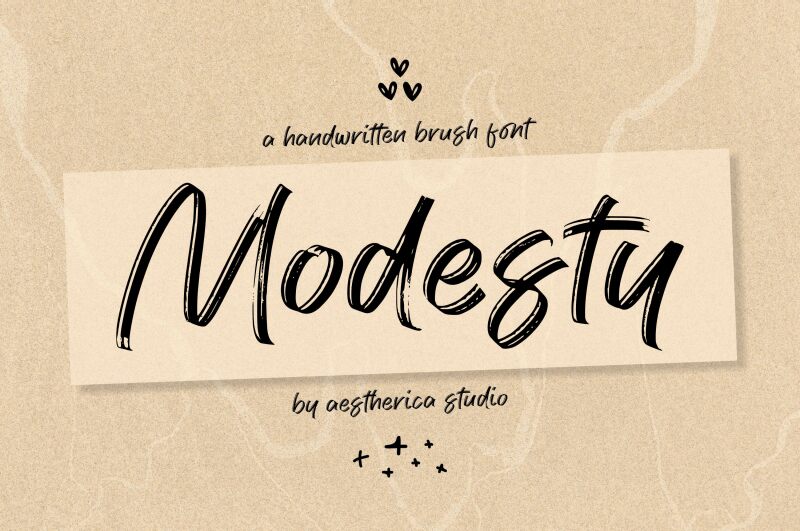
Modesty
Modesty, an exquisite creation by Aestherica Studio, is a captivating brush font that effortlessly combines elegance and playfulness. Its semi-light weight adds a touch of delicacy to any design project.
With its graceful strokes and charming irregularities, Modesty is perfect for greeting cards, wedding invitations, and feminine branding projects. This font effortlessly conveys a sense of warmth and sophistication to fashion magazines, beauty blogs, and lifestyle websites.
Embrace the enchanting allure of Modesty and elevate your designs with its distinctive charm.